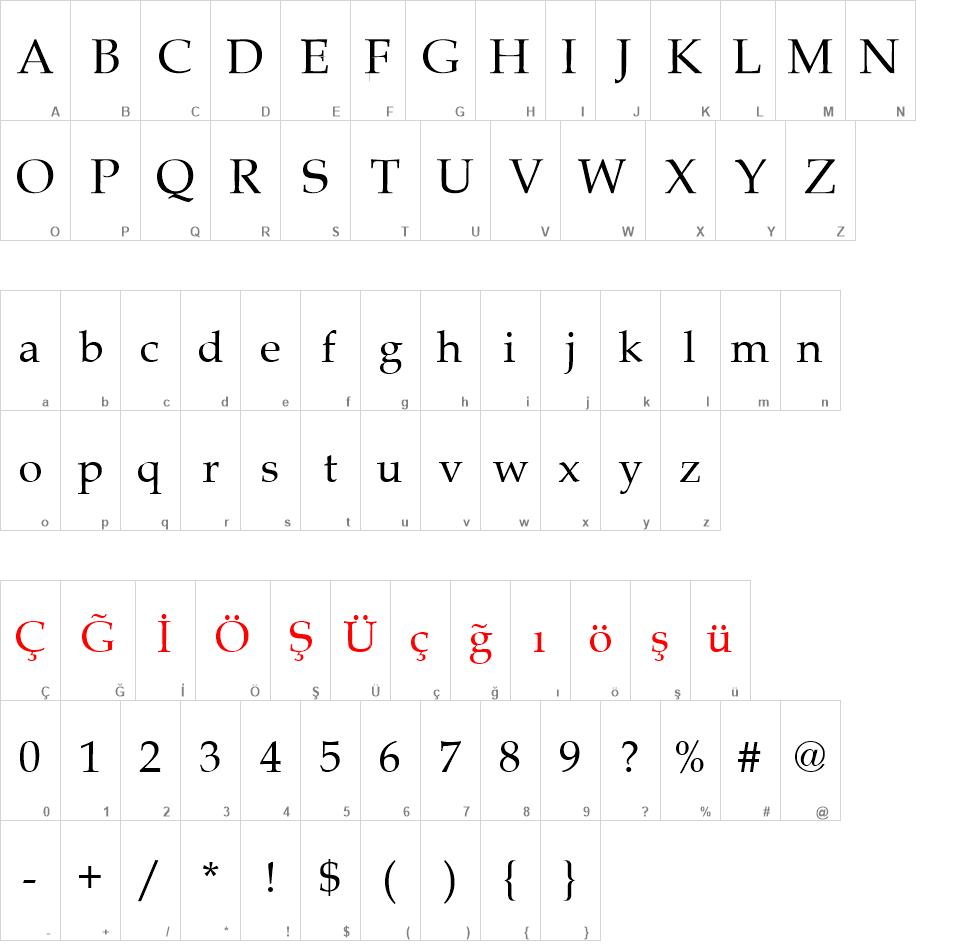
On this page you can download book antiqua font version 2.20, which belongs to the family book antiqua (regular tracing). Preview your fonts your headline is in book antiqua this is a sub heading in book antiqua. Book antiqua font has 4 weights.
Monotype's Copy Of Palatino, Designed With The Same Character Widths, Spacing, And Kerning Properties.
I am trying to set my paper's style to book antiqua. This conspicuous typeface was designed and shared by monotype corporation. Download more fonts similar to book antiqua typeface in category: